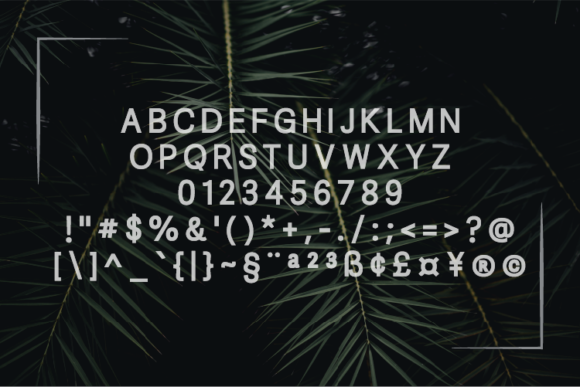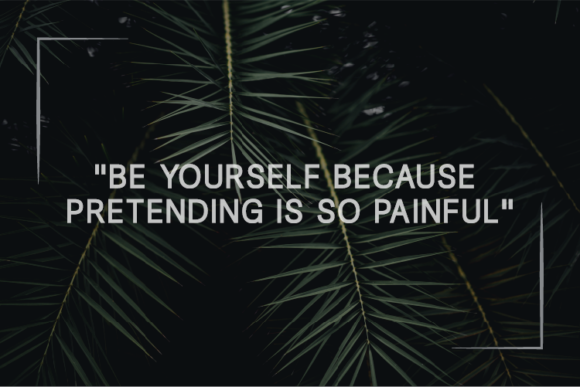
Introducing Beirley Font: The Ultimate Sans Serif for Modern Designs
Are you tired of using the same old fonts for your design projects? Look no further than Beirley Font, a minimal yet fresh and elegant sans serif font that’s perfect for making your creative ideas stand out. In this article, we’ll dive into the world of Beirley Font and explore its features, benefits, and uses.
What is Beirley Font?
Beirley Font is a modern sans serif font that’s designed to be versatile and adaptable. Its clean lines, simple shapes, and elegant curves make it perfect for a wide range of design projects, from branding and advertising to packaging and digital media.
Key Features of Beirley Font
• Minimalist design: Beirley Font boasts a minimalist design that’s perfect for modern designs. Its simple shapes and clean lines make it easy to read and versatile.
• Fresh and elegant: Despite its minimalist design, Beirley Font has a fresh and elegant feel that’s perfect for high-end designs.
• Sans serif: Beirley Font is a sans serif font, which means it doesn’t have any decorative lines or flourishes. This makes it perfect for digital media and designs that need to be clear and concise.
• Highly versatile: Beirley Font can be used for a wide range of design projects, from branding and advertising to packaging and digital media.
Benefits of Using Beirley Font
So why should you use Beirley Font for your design projects? Here are just a few benefits:
• Stand out from the crowd: Beirley Font is a unique and distinctive font that will help your designs stand out from the crowd.
• Easy to read: Beirley Font is designed to be easy to read, even at small sizes. This makes it perfect for digital media and designs that need to be clear and concise.
• Adaptable: Beirley Font can be used for a wide range of design projects, from minimalist designs to more complex and detailed projects.
• Time-saving: With Beirley Font, you can save time and effort by using a pre-designed font that’s already optimized for readability and aesthetics.
Uses of Beirley Font
Beirley Font is a versatile font that can be used for a wide range of design projects, including:
• Branding and advertising: Use Beirley Font to create bold and eye-catching branding and advertising campaigns.
• Packaging design: Beirley Font is perfect for packaging design, where clear and concise labeling is essential.
• Digital media: Use Beirley Font for digital media, such as website design, social media graphics, and email marketing campaigns.
• Print design: Beirley Font can also be used for print design, such as brochures, flyers, and business cards.
Tips for Using Beirley Font
Here are a few tips for using Beirley Font effectively:
• Use it sparingly: Beirley Font is a bold and eye-catching font, so use it sparingly to avoid overwhelming your designs.
• Pair it with other fonts: Beirley Font can be paired with other fonts to create a unique and interesting design.
• Experiment with colors: Beirley Font looks great in a range of colors, so experiment with different colors to find the one that works best for your design.
Font Name Beirley Font
Author Huntype
Beirley Font is a versatile and elegant sans serif font that’s perfect for modern designs. Its minimalist design, fresh and elegant feel, and highly adaptable nature make it perfect for a wide range of design projects. Whether you’re a designer, crafter, or DIY enthusiast, Beirley Font is a great addition to your font library.